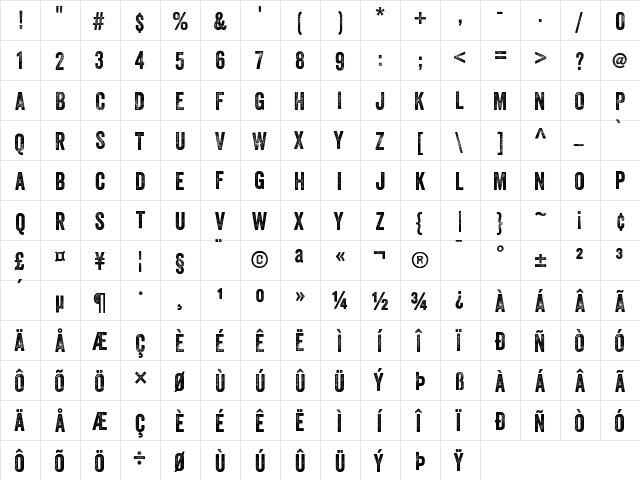
Veneer Two Regular
| Foundry | Ryan Martinson |
| Designer | Ryan Martinson |
Design Context for Veneer Two Typeface
Veneer Two is a composed and adaptable typeface that performs quietly and consistently across a wide range of design contexts.